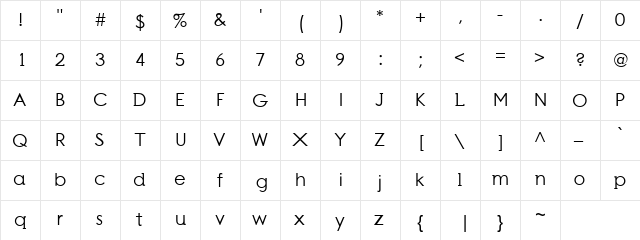
Myanmar1 Regular
Design Context for Myanmar1 Typeface
Myanmar1 offers clean, dependable letterforms without strong stylistic allegiance, making it a practical choice for designers who need flexibility.
Pro Tip: Use Myanmar1 in both headline and body roles to test its range before committing to a single application.